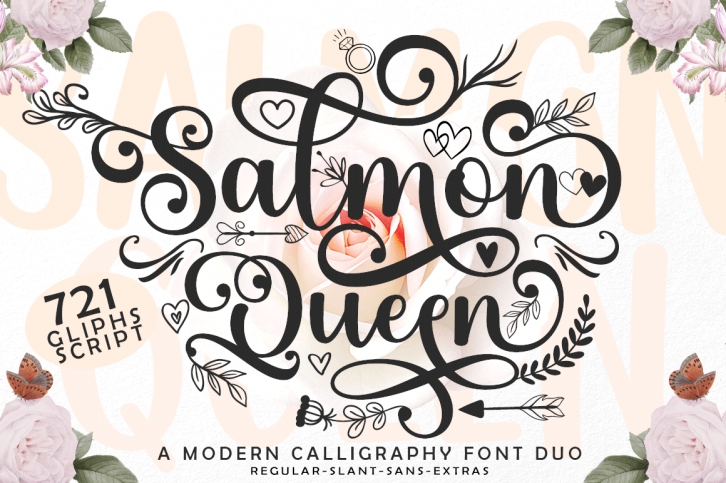
Salmon Queen Duo is a gorgeous duo font (script and sans serif). Trendy and stylish, this font will elevate each of your creations. Salmon Queen Duo is PUA encoded which means you can access all of the glyphs and swashes with ease!